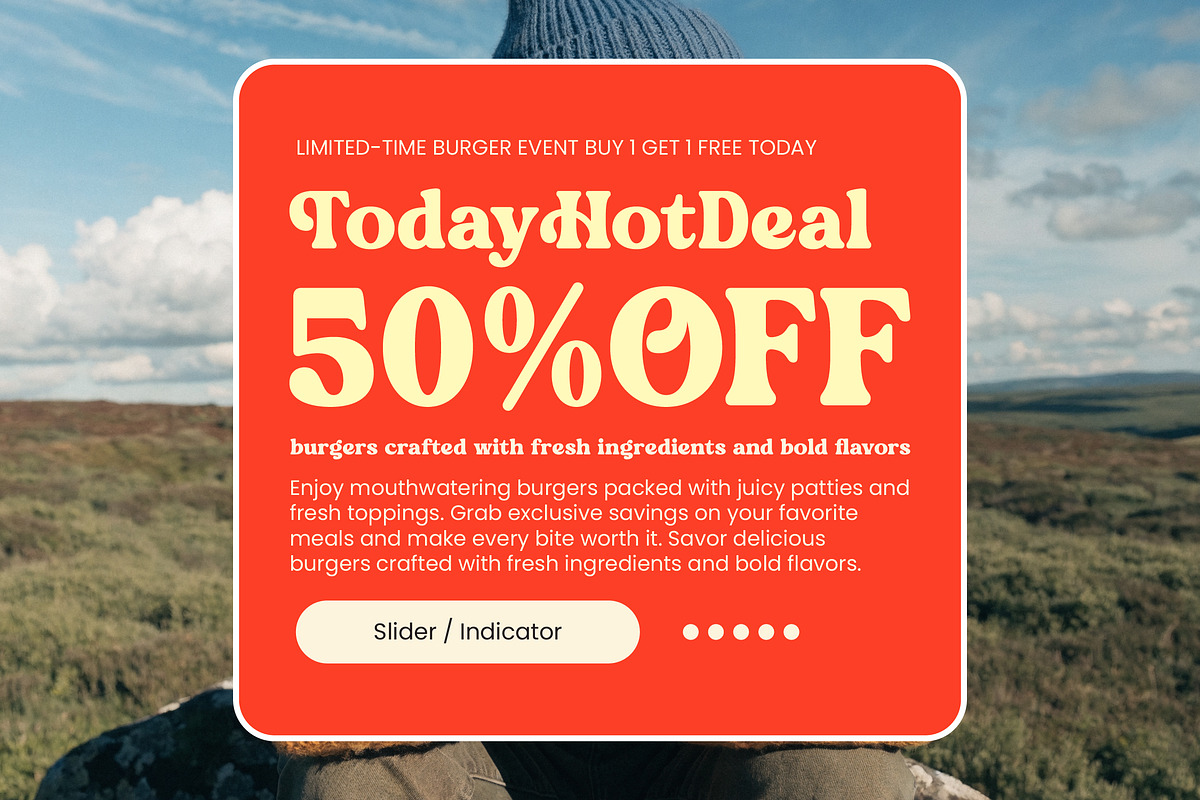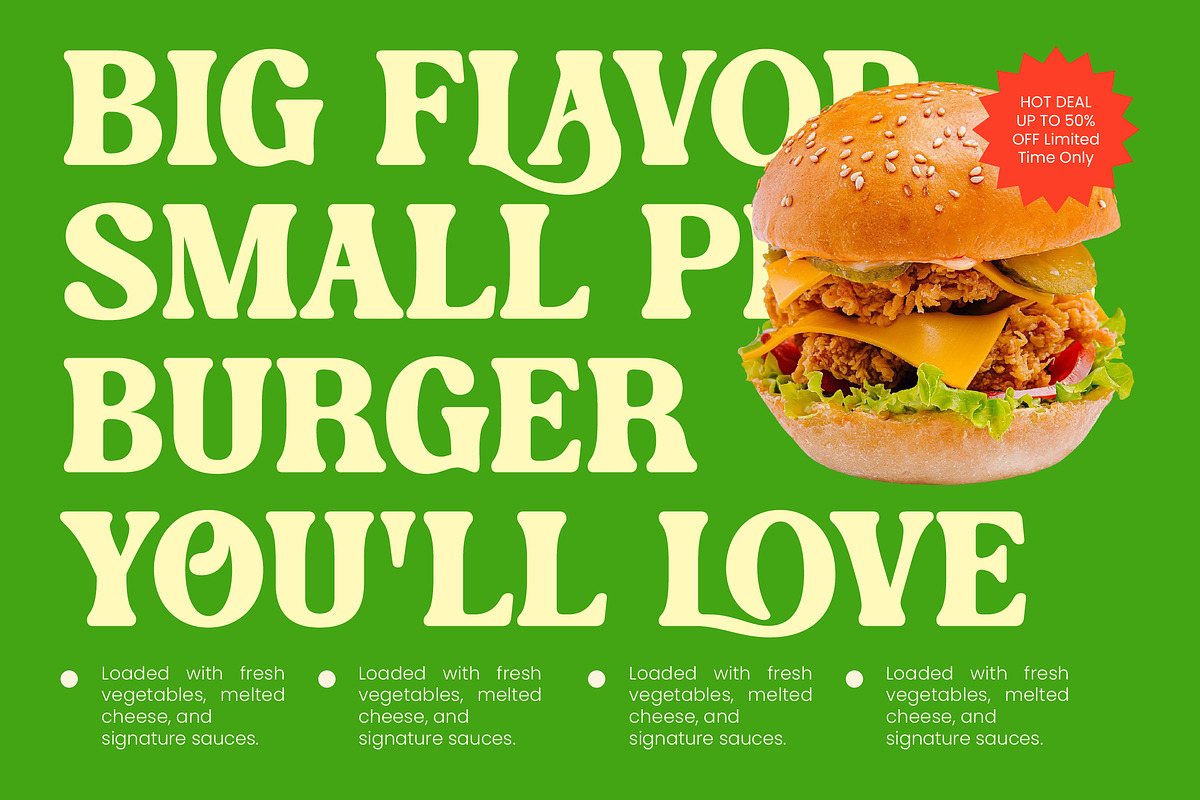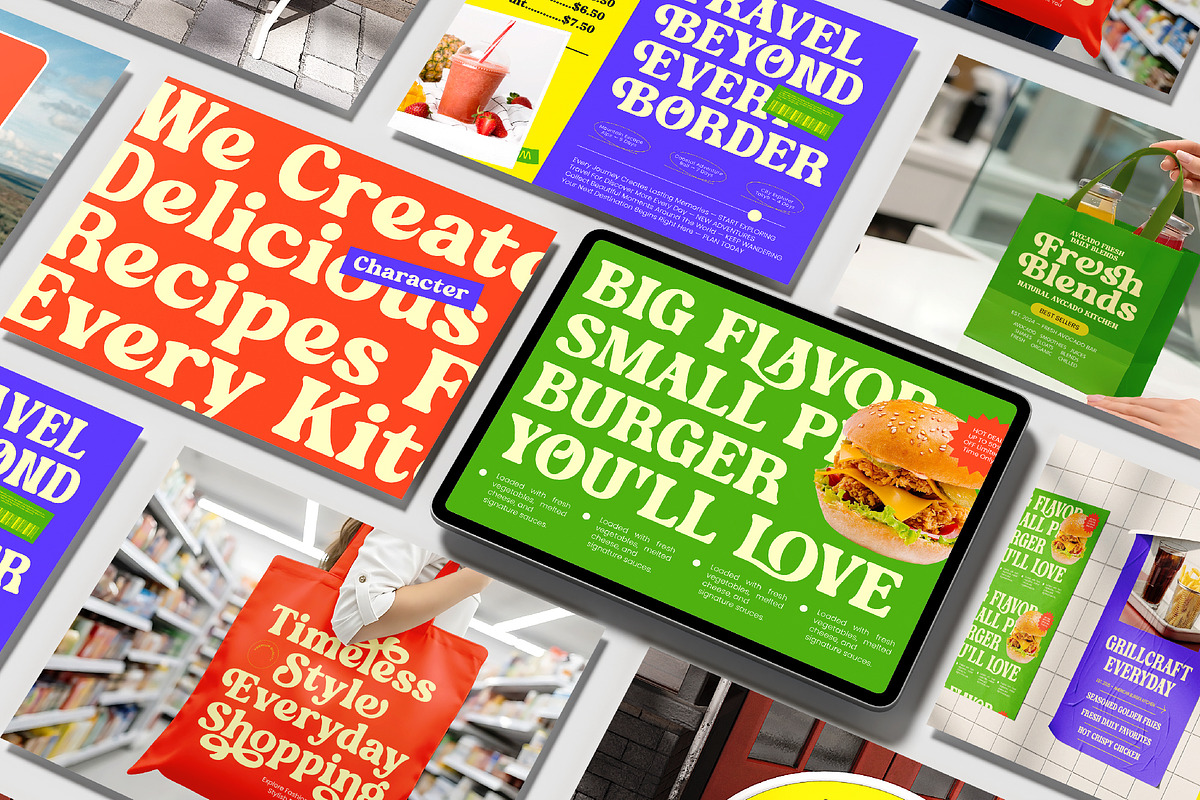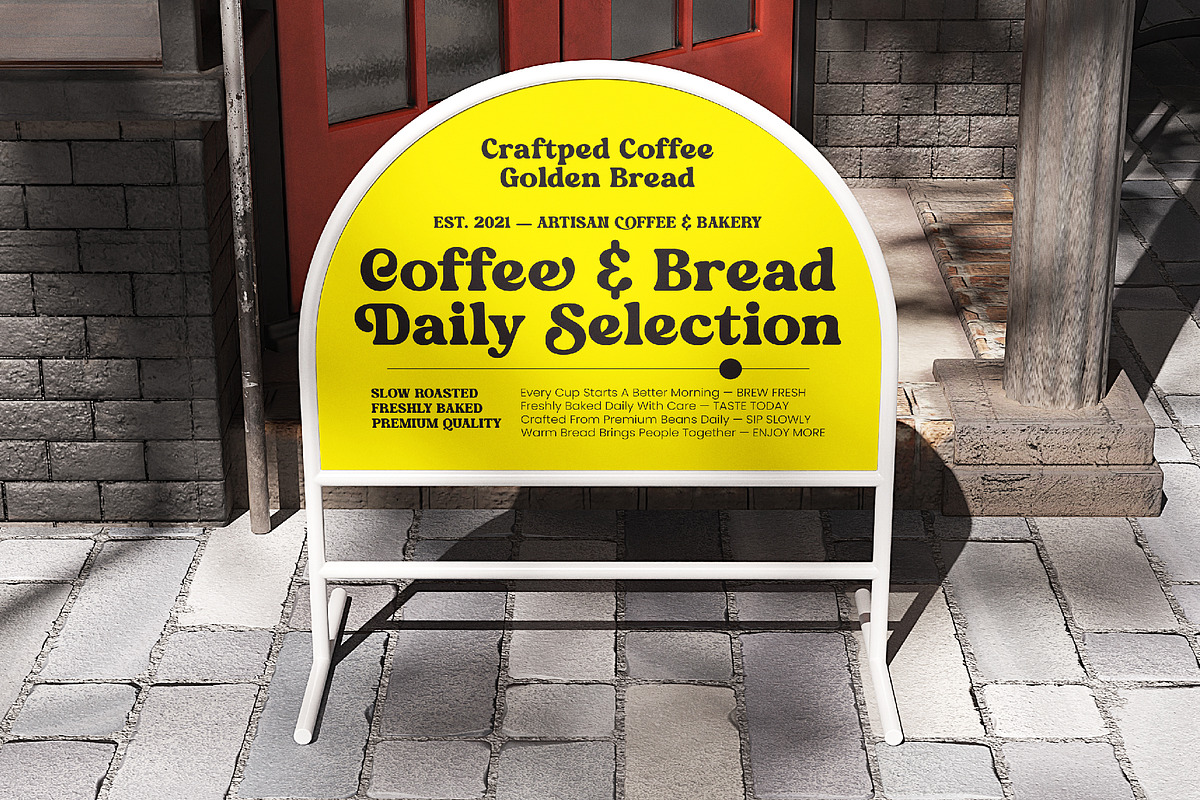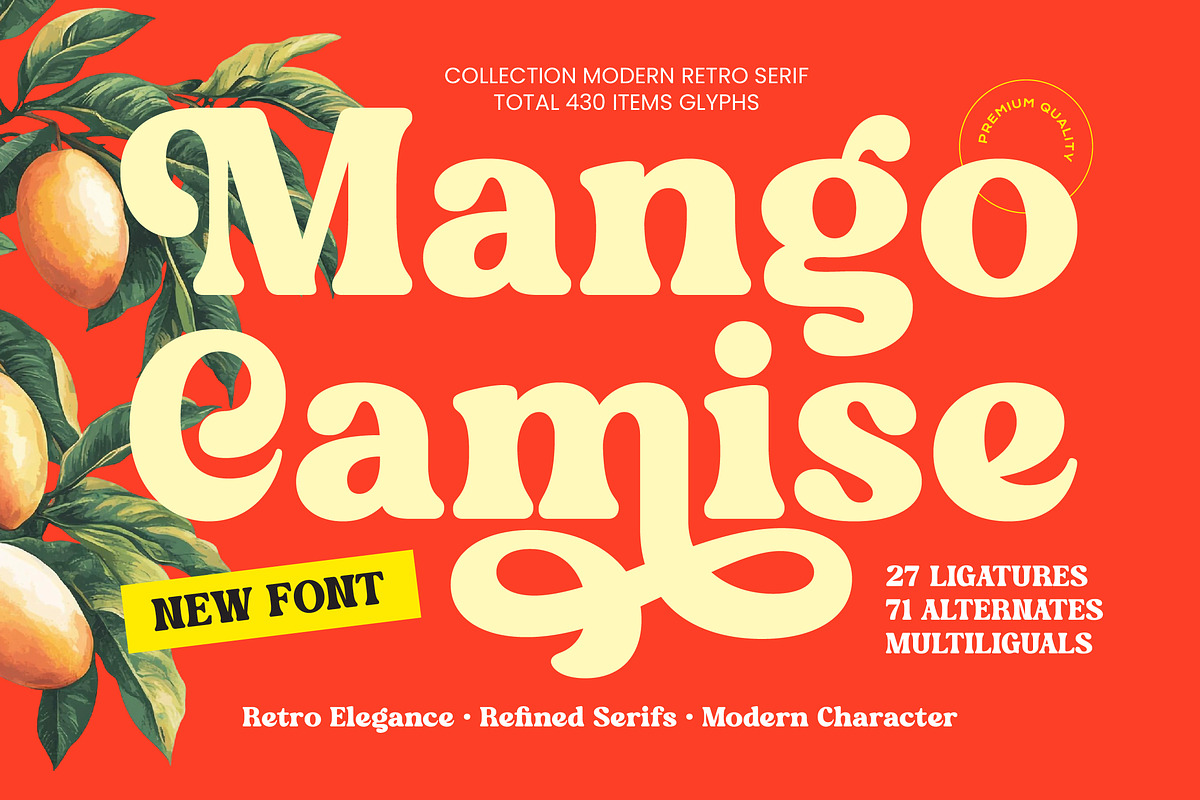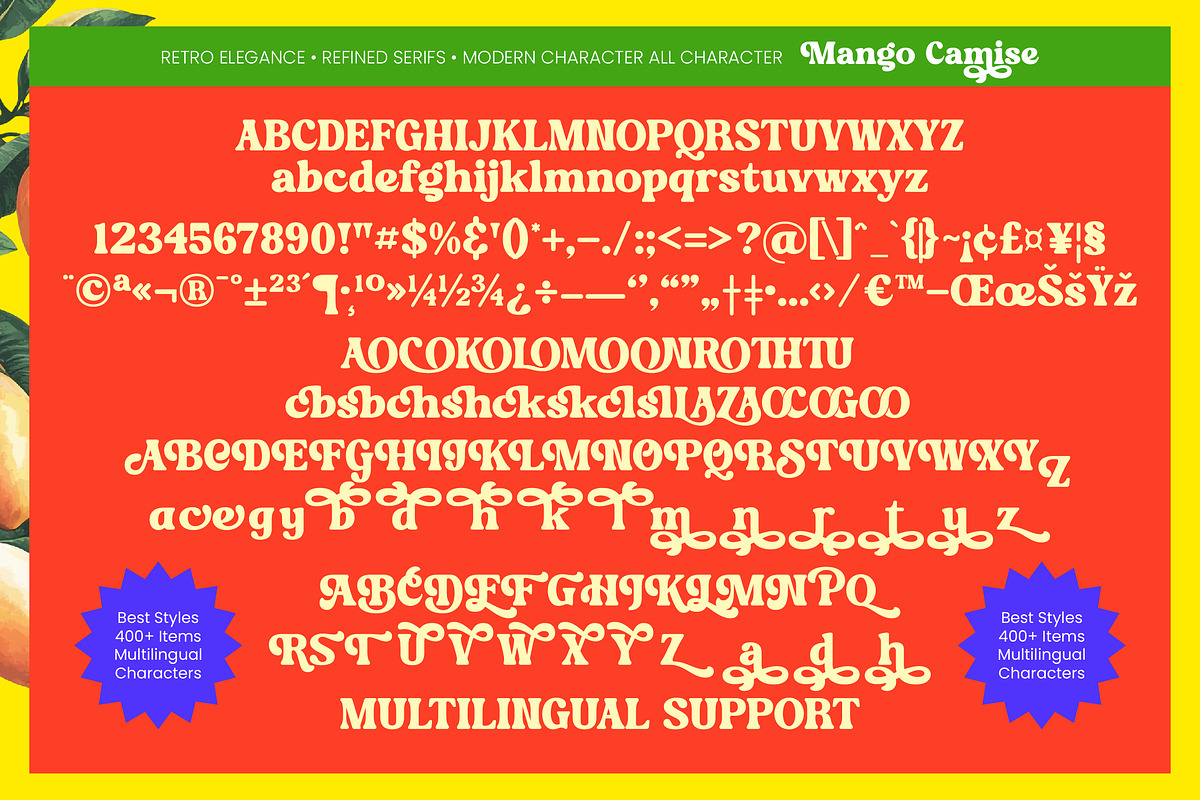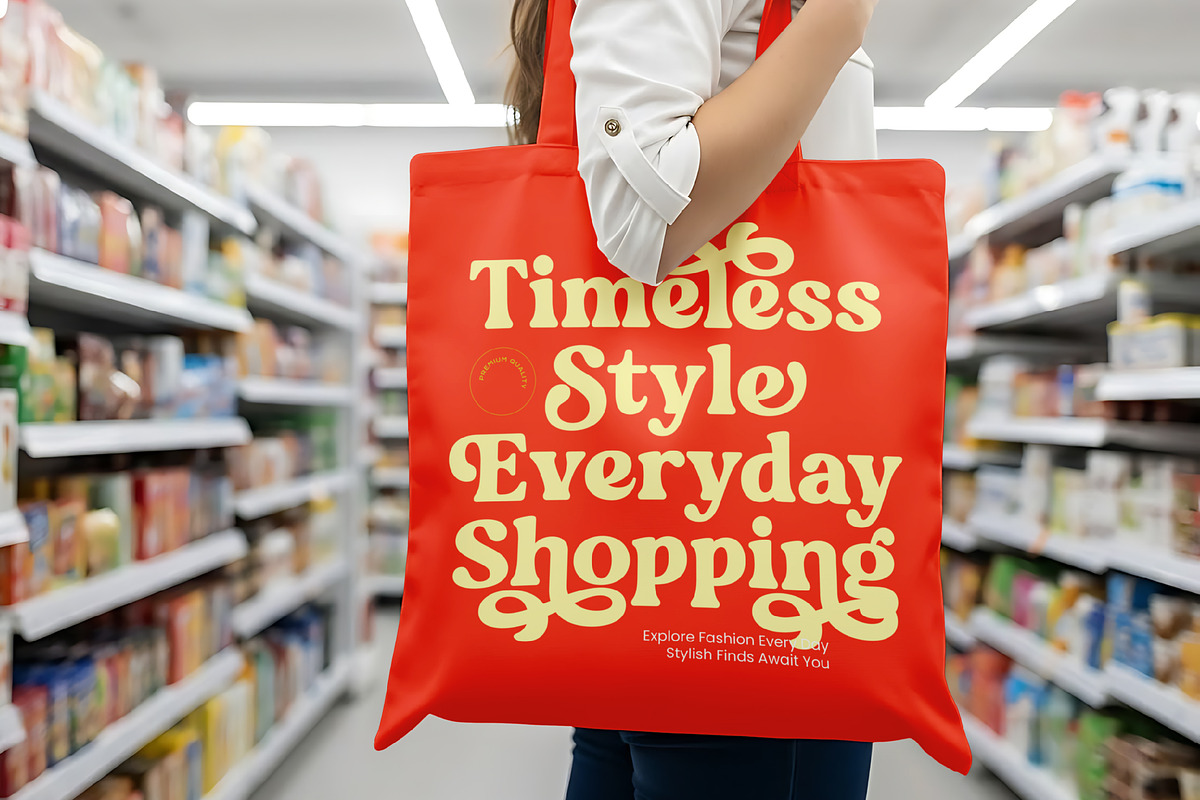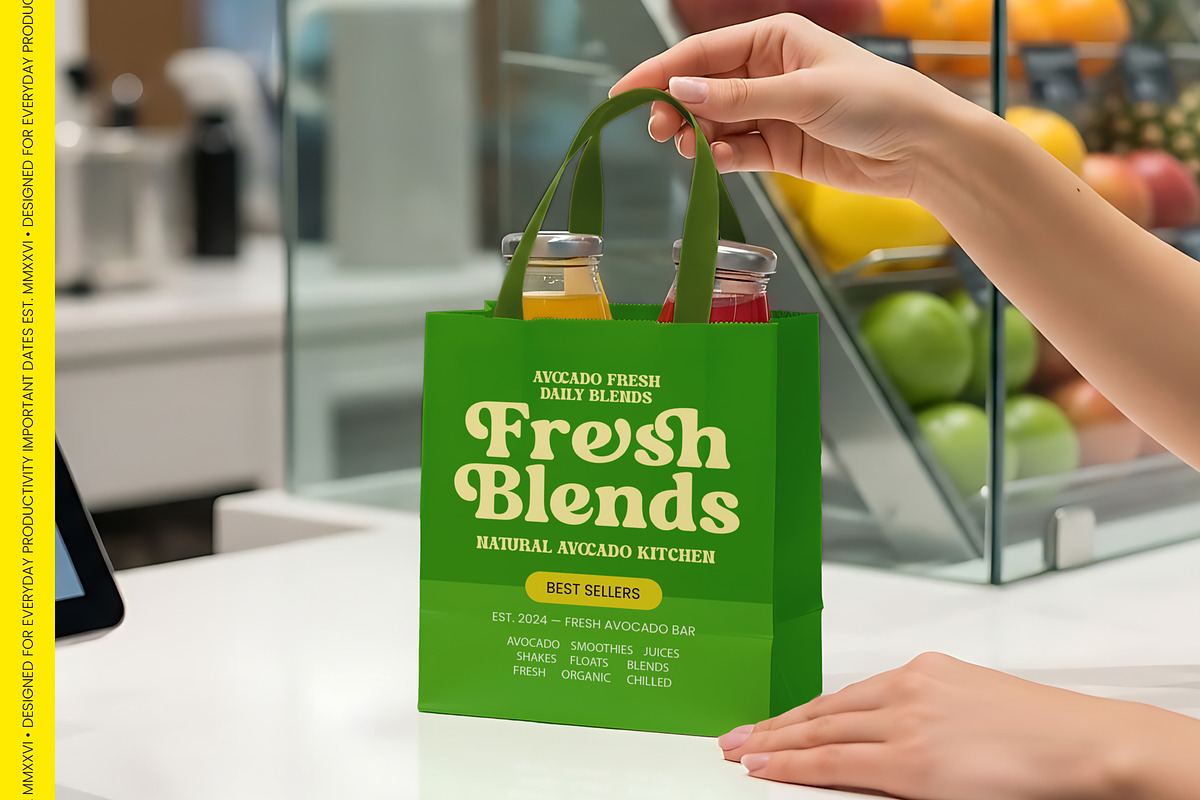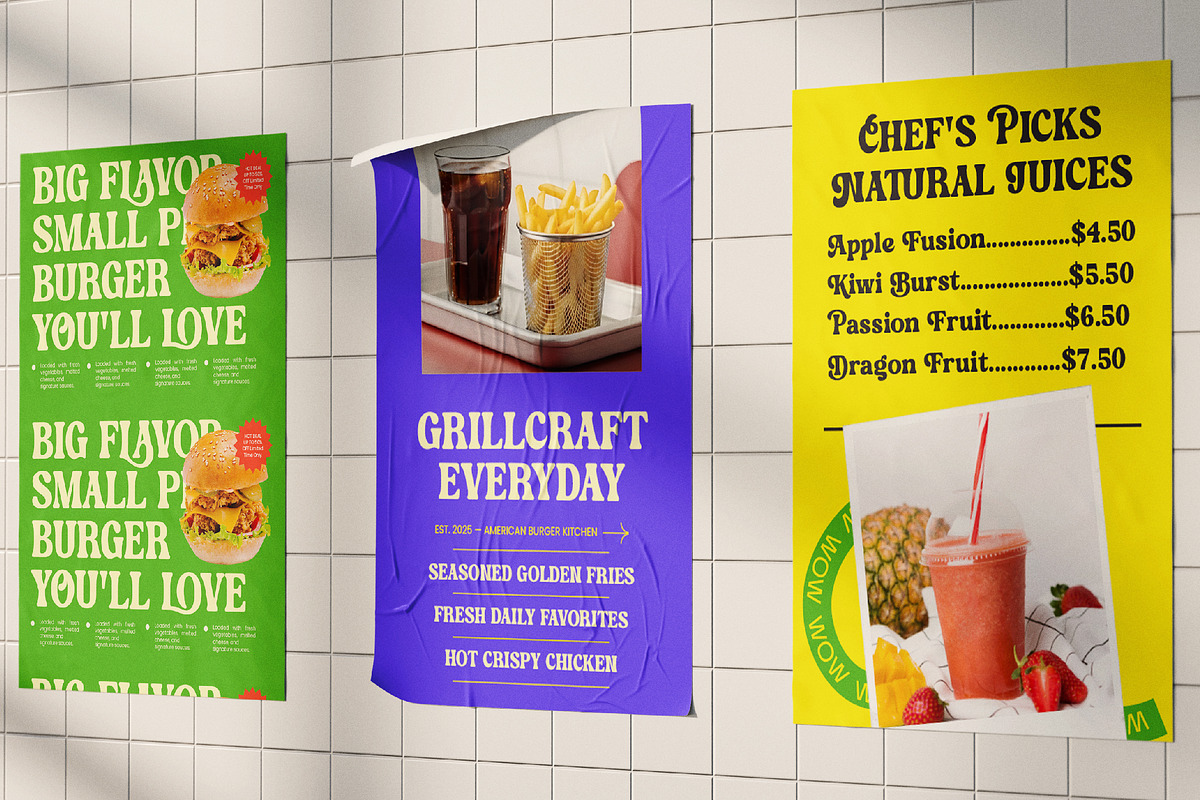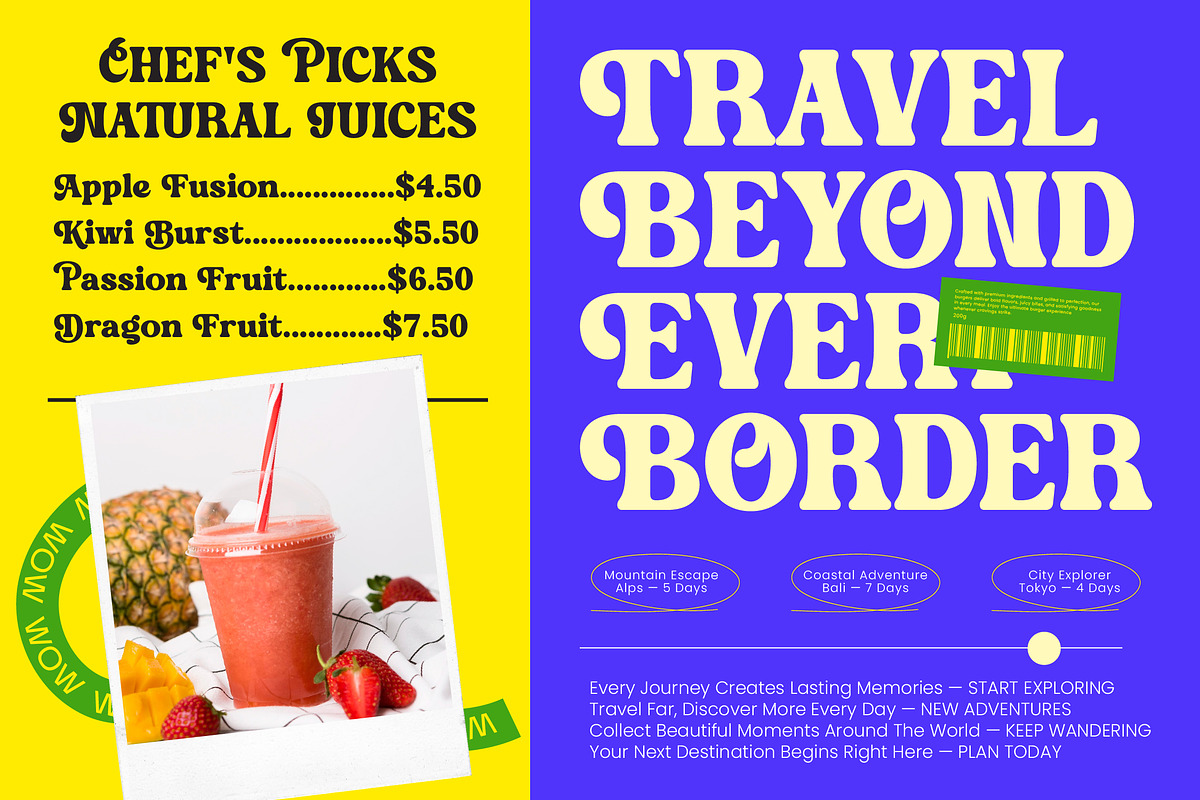
Mango Camise Modern Retro Serif
Mango Camise - Modern Retro Serif , Elevate your visual identity with a font that perfectly balances vintage charm and contemporary flair. Mango Camise - Modern Retro Serif is a masterpiece of modern retro design, featuring bold curves and refined serifs that capture the essence of high-end aesthetics. Its high-contrast strokes and organic shapes provide a sense of warmth and sophistication, making it an essential tool for designers seeking a unique typographic personality.
Experience unparalleled versatility with a robust set of features designed for global impact. Boasting a comprehensive library of 430 glyphs, including 27 custom ligatures and 71 creative alternates, this typeface offers endless possibilities for customization. With its extensive multilingual support, Mango Camise - Modern Retro Serif adapts seamlessly across global markets, making it incredibly versatile for international projects. This ensures your message remains consistent and visually striking in any language.
Unlock a world of creative possibilities with a typeface engineered for high-end presentation and luxury aesthetics. Mango Camise - Modern Retro Serif is the perfect choice for luxury branding, premium packaging, and editorial design. Its playful yet professional nature makes it ideal for modern logos, fashion magazines, and lifestyle marketing that demand immediate attention. Whether you are crafting a boutique identity or a global campaign, this font delivers a polished and commanding finish.
Secure a timeless aesthetic for your next project by choosing a font that defines sophistication and style. Mango Camise - Modern Retro Serif transcends fleeting trends, offering a classic aesthetic that feels both nostalgic and forward-thinking. By integrating this premium serif into your design toolkit, you gain the ability to communicate quality and prestige effortlessly. Transform your creative vision into a compelling visual narrative with this highly versatile typographic solution.